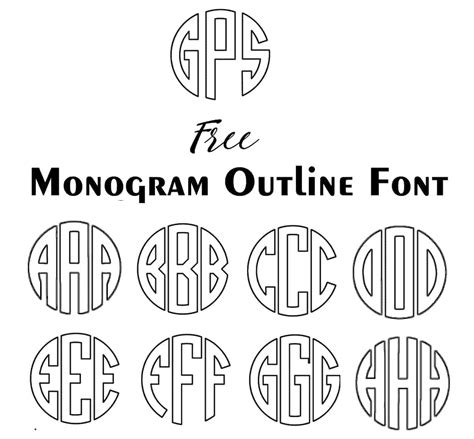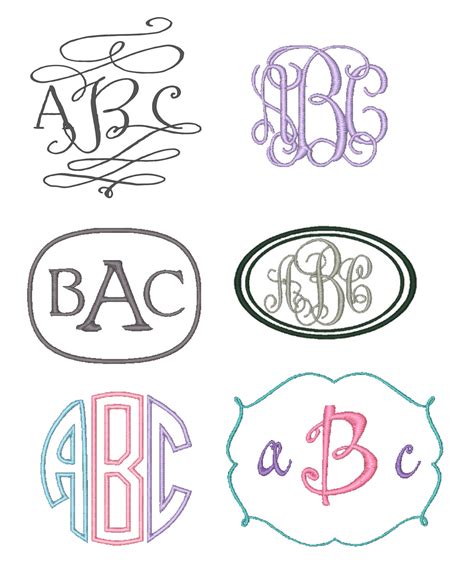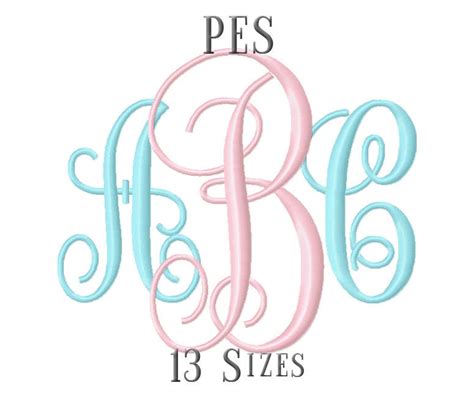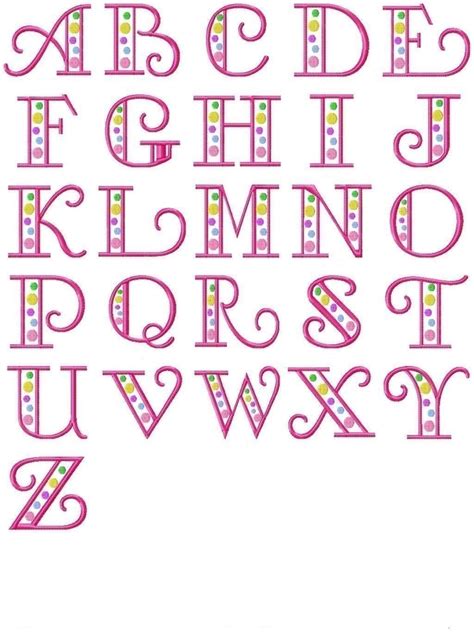
Embroidery is an art form that has been cherished for centuries, and with the advent of digital technology, it has become even more accessible. One of the most exciting developments in this field is the availability of free embroidery fonts. These fonts allow enthusiasts and professionals alike to create stunning designs with ease. Whether you are a seasoned embroiderer or just starting out, incorporating free embroidery fonts into your projects can add a unique touch and elevate your work to new heights.
Understanding Embroidery Fonts
Embroidery fonts are specialized digital fonts designed to be used with embroidery machines. These fonts convert text into stitch patterns that can be embroidered onto various materials. Unlike traditional fonts used for printing or digital displays, embroidery fonts must account for the physical limitations of stitching, such as the thickness of the thread and the density of the stitches.
There are several types of embroidery fonts available, each with its own unique characteristics:
- Monogram Fonts: These fonts are ideal for creating elegant and personalized monograms. They often feature intricate designs and are perfect for adding a touch of sophistication to any project.
- Script Fonts: Script fonts mimic handwriting and are great for adding a personal, handcrafted feel to your embroidery. They are often used for quotes, names, and other text that benefits from a more fluid, natural look.
- Block Fonts: Block fonts are bold and straightforward, making them perfect for creating clear and legible text. They are often used for labels, logos, and other applications where readability is key.
- Decorative Fonts: These fonts add a playful or whimsical touch to your embroidery. They are often used for children's items, holiday decorations, and other projects where a bit of fun is desired.
Benefits of Using Free Embroidery Fonts
Using free embroidery fonts offers numerous benefits, making them a popular choice among embroidery enthusiasts. Some of the key advantages include:
- Versatility: Free embroidery fonts come in a wide variety of styles, allowing you to choose the perfect font for any project. Whether you need a classic, elegant look or something more modern and playful, there is a font to suit your needs.
- Ease of Use: Many free embroidery fonts are designed to be user-friendly, with easy-to-follow instructions and compatibility with popular embroidery software. This makes it simple to incorporate text into your designs, even if you are new to digital embroidery.
- Customization: With free embroidery fonts, you can easily customize your designs to reflect your personal style. Whether you are creating a gift for a loved one or a unique piece for yourself, the ability to personalize your embroidery adds a special touch.
How to Choose the Right Free Embroidery Font
Selecting the right free embroidery font for your project can make a significant difference in the final outcome. Here are some tips to help you choose the perfect font:
- Consider the Project: Think about the purpose of your embroidery project and the overall aesthetic you want to achieve. For example, a script font might be ideal for a romantic gift, while a block font could be more suitable for a sports team logo.
- Readability: Ensure that the font you choose is legible, especially if the text is an essential part of the design. Avoid overly decorative fonts for important information, as they can be difficult to read.
- Size and Scale: Consider the size of the embroidery area and the scale of the font. Some fonts may look great on a large piece but become illegible when scaled down.
- Compatibility: Make sure the font is compatible with your embroidery machine and software. Most free embroidery fonts come with instructions on how to install and use them, so be sure to follow these guidelines.
💡 Note: Always preview your design before stitching to ensure that the font looks as expected and fits within the designated area.
Top Free Embroidery Fonts for Different Projects
There are countless free embroidery fonts available, each with its own unique characteristics. Here are some popular options for different types of projects:
Monogram Fonts
Monogram fonts are perfect for adding a personal touch to items like towels, robes, and clothing. Some popular free embroidery fonts in this category include:
- Monogram Script: This font features a elegant, flowing script that is ideal for monograms and personalized gifts.
- Monogram Block: A bold and straightforward font that is perfect for creating clear and legible monograms.
- Monogram Floral: This font combines elegant script with floral elements, adding a touch of romance to your monograms.